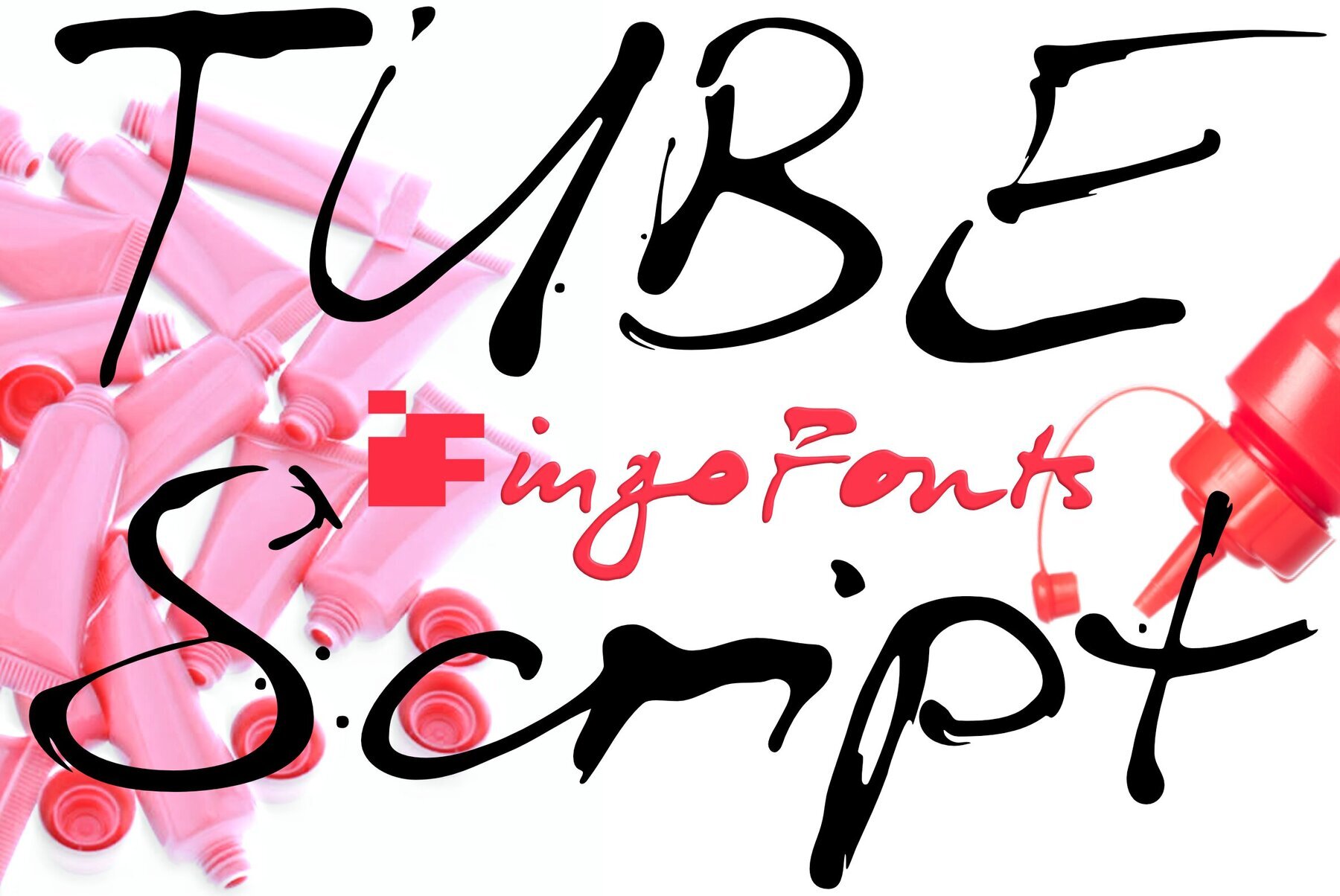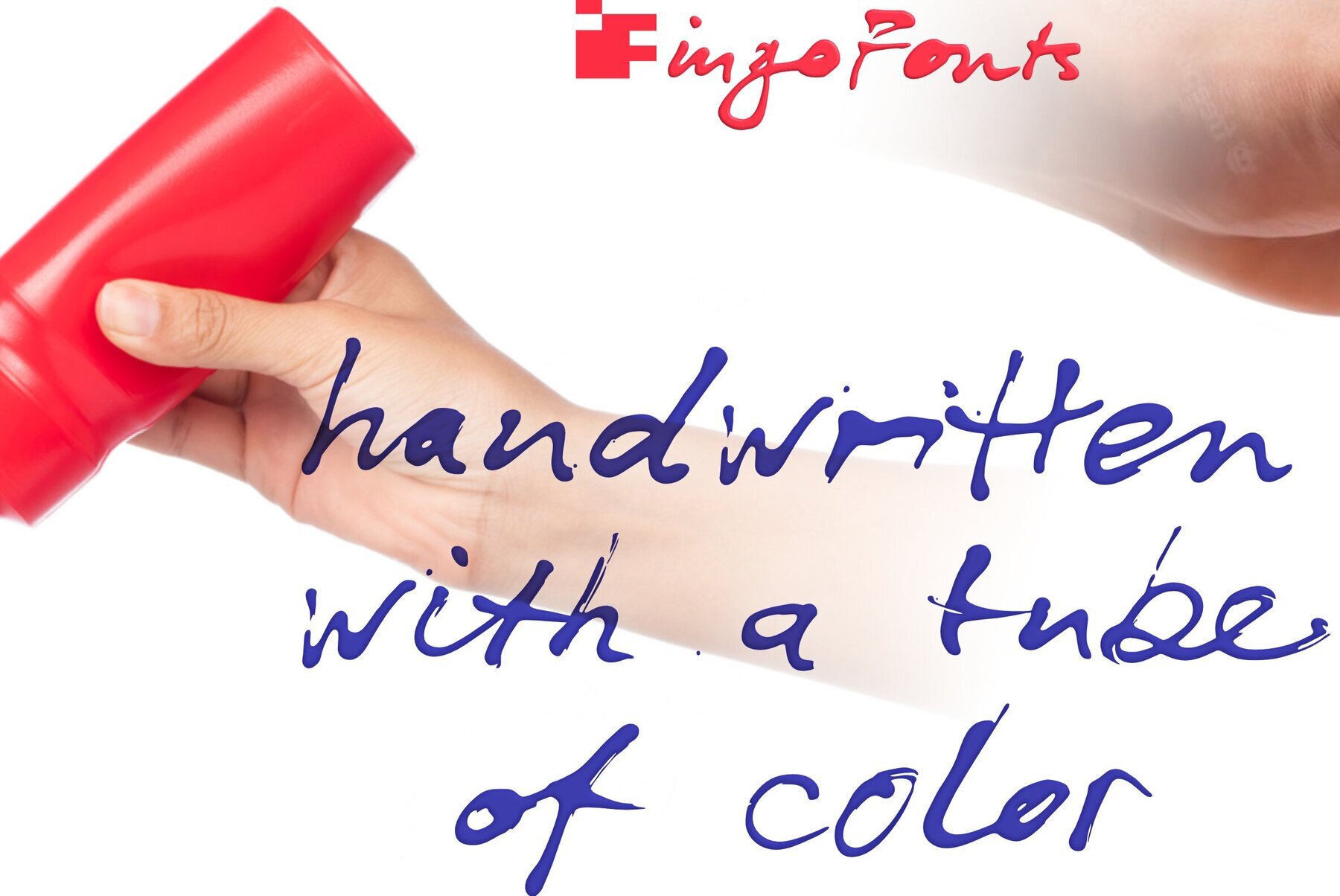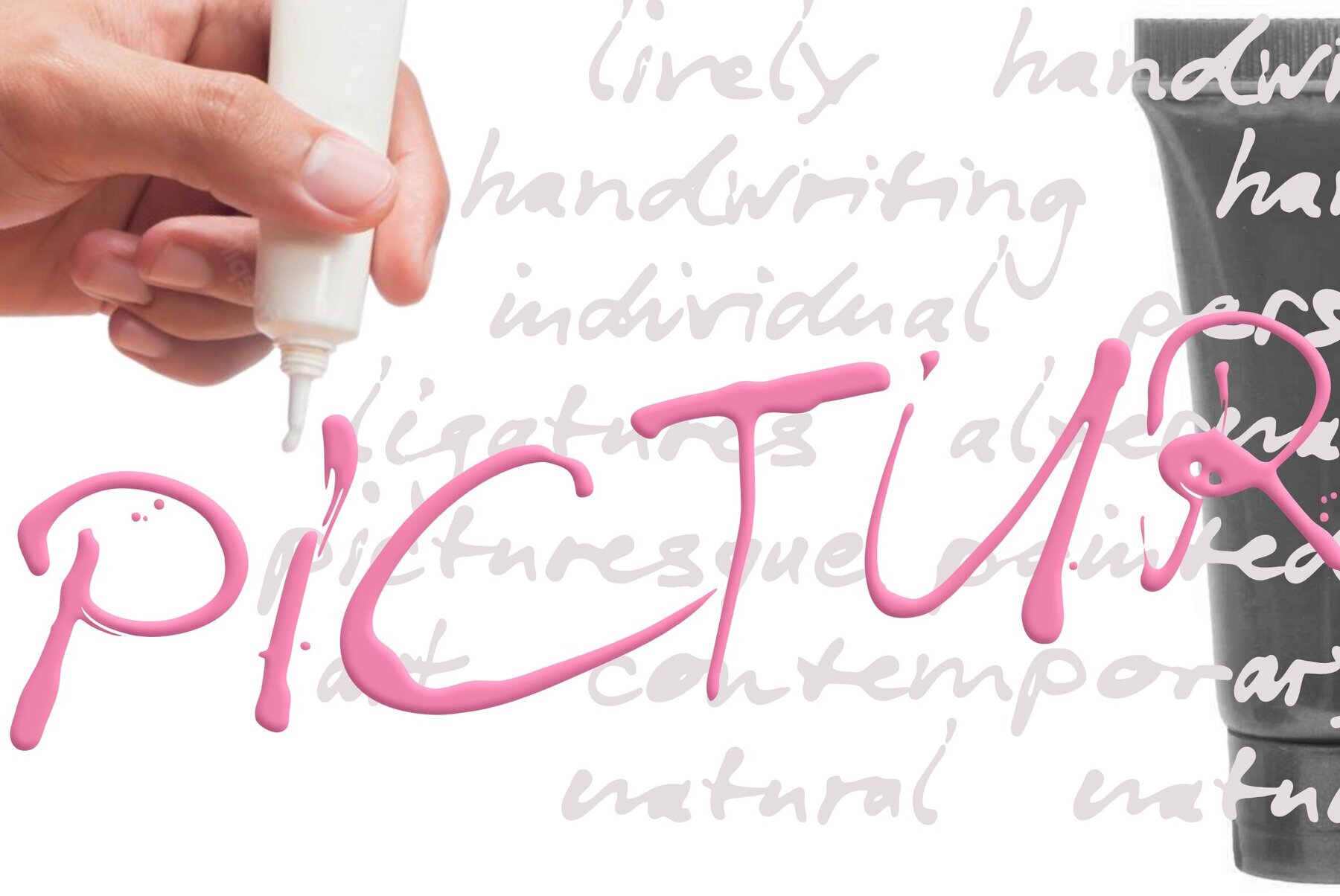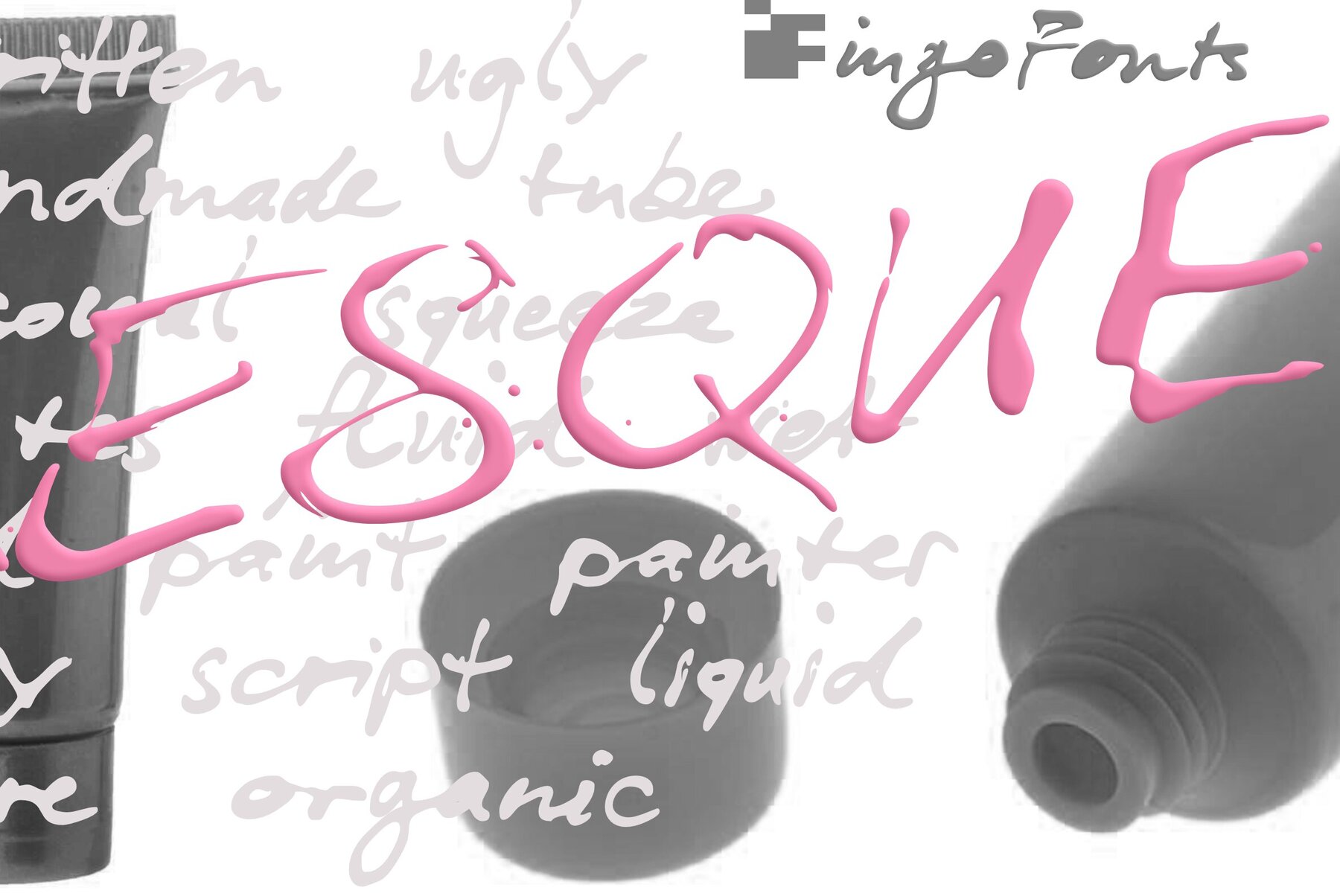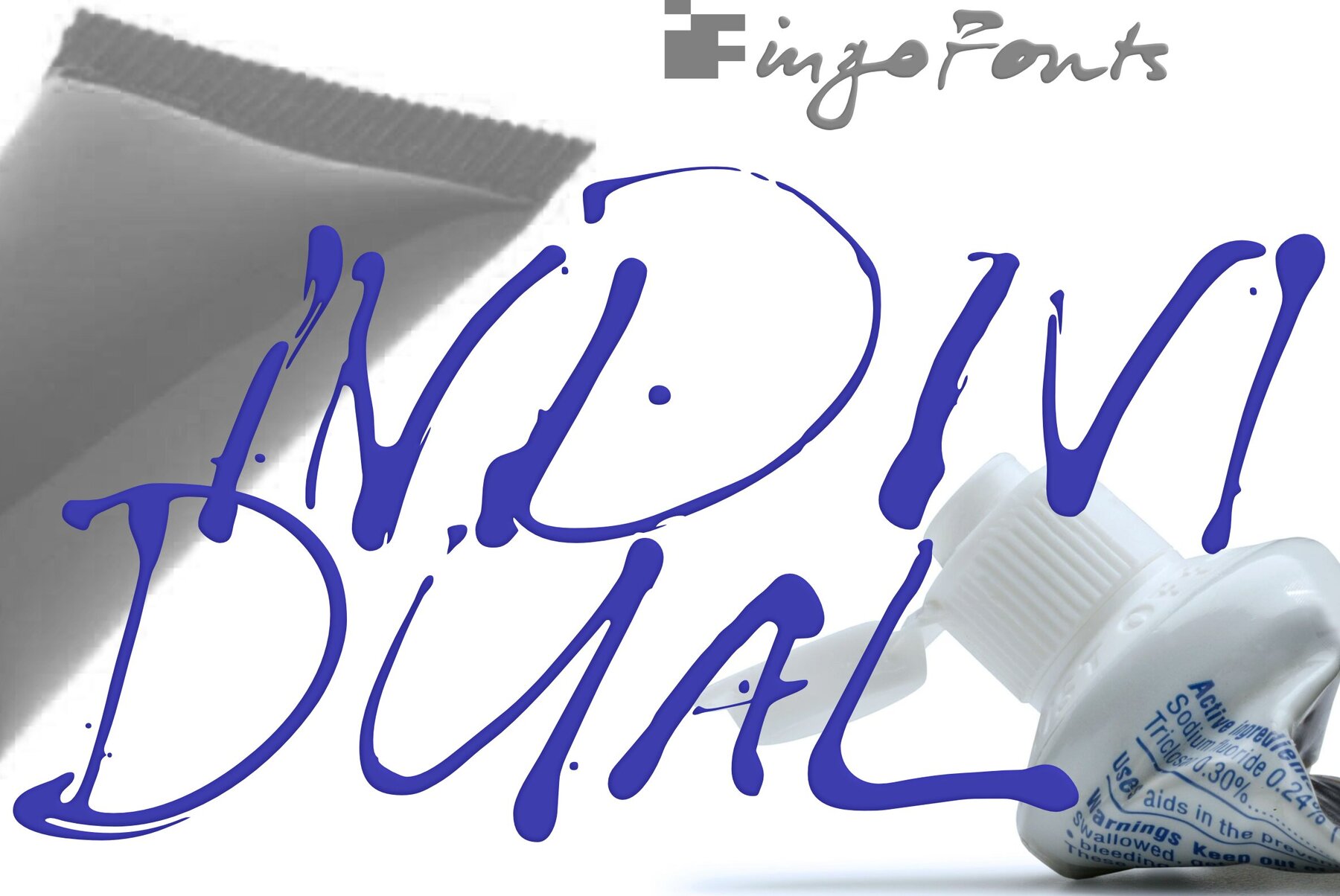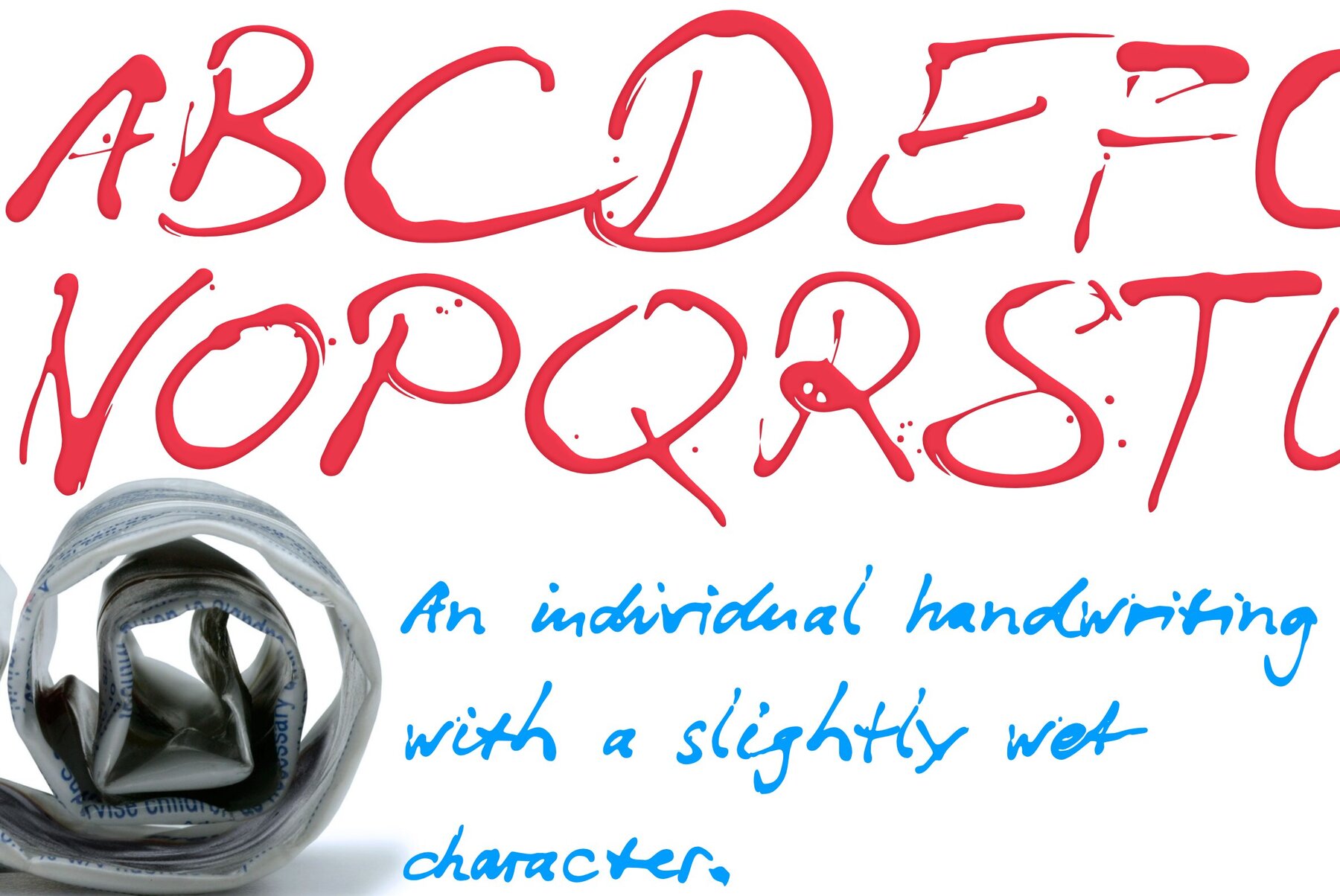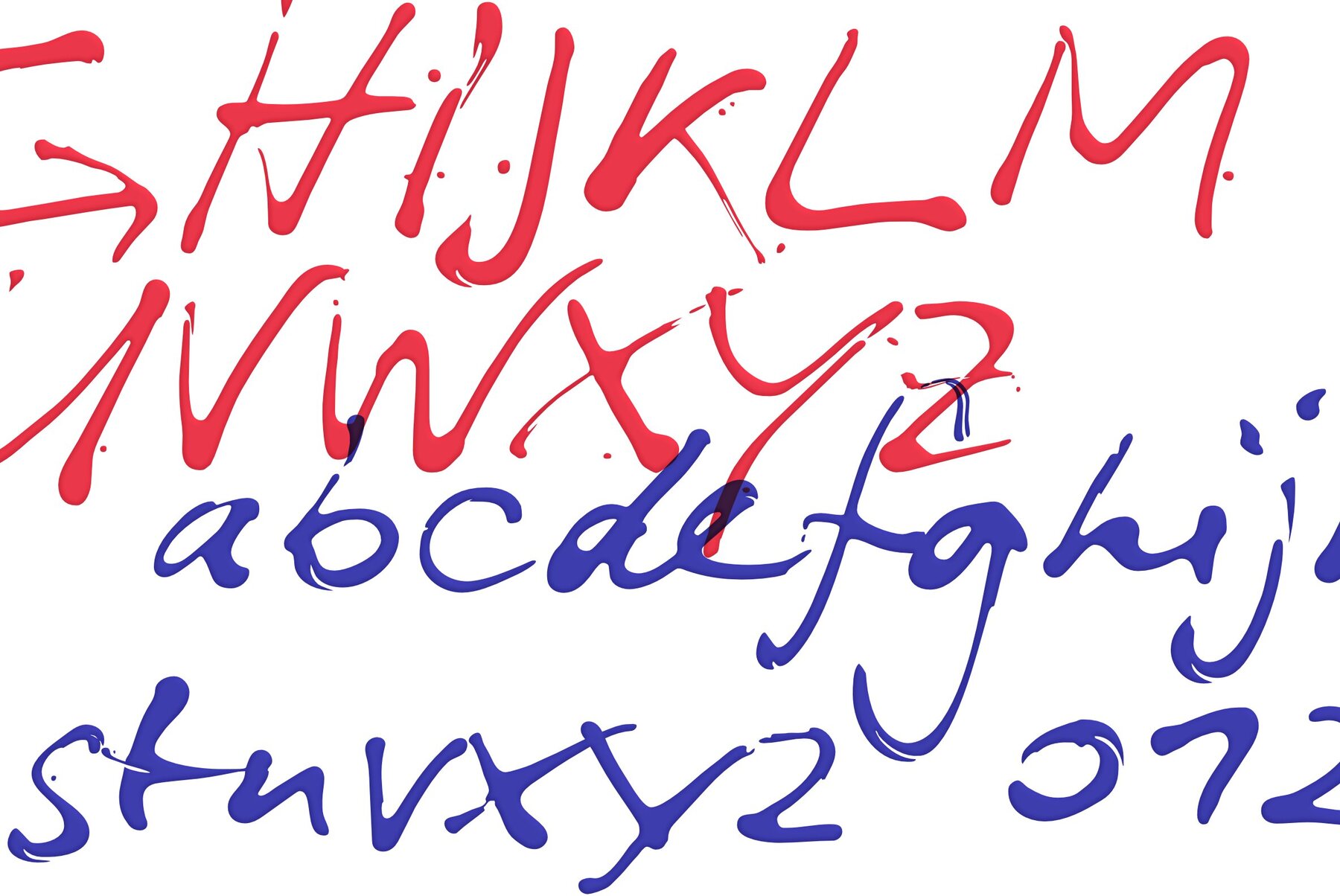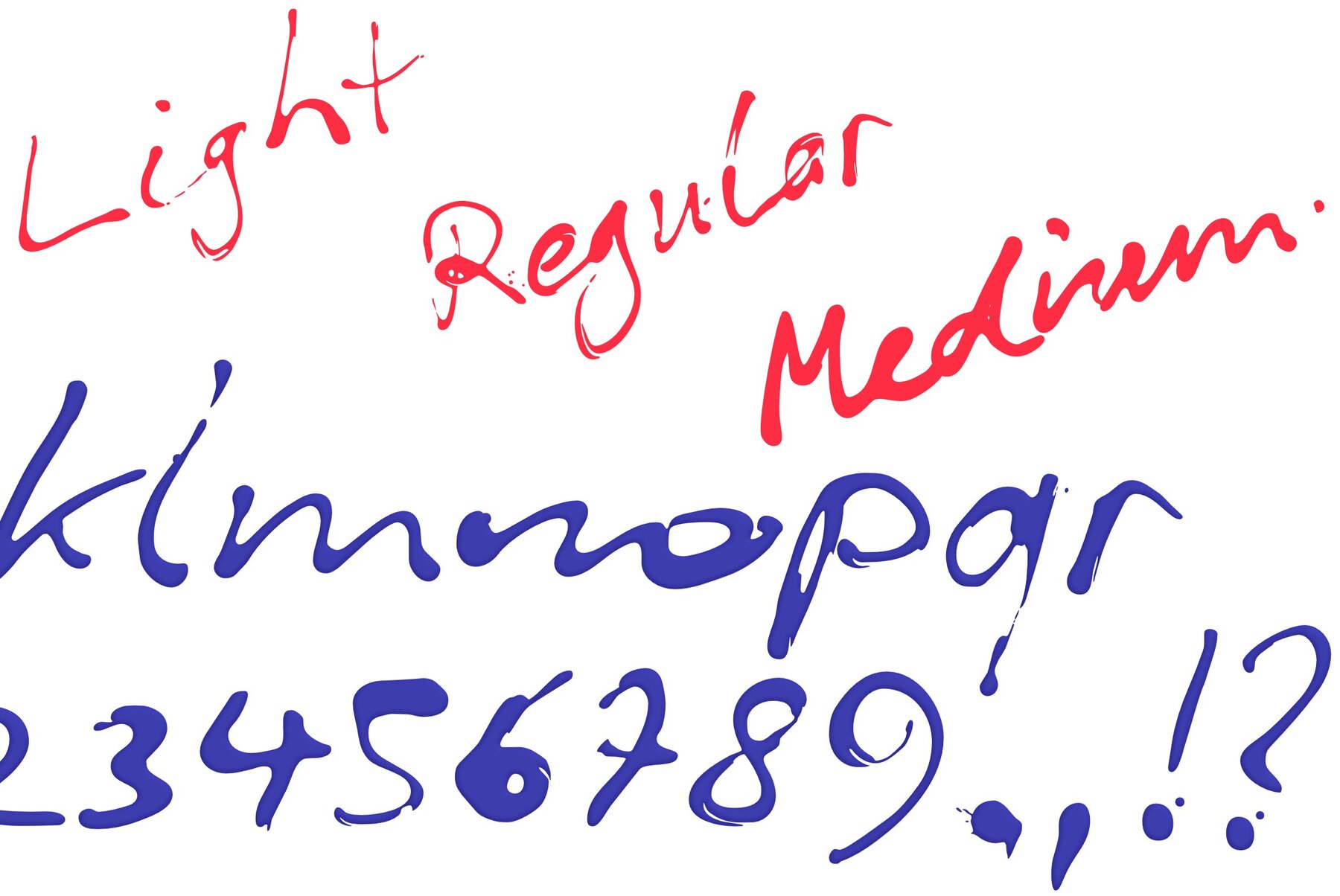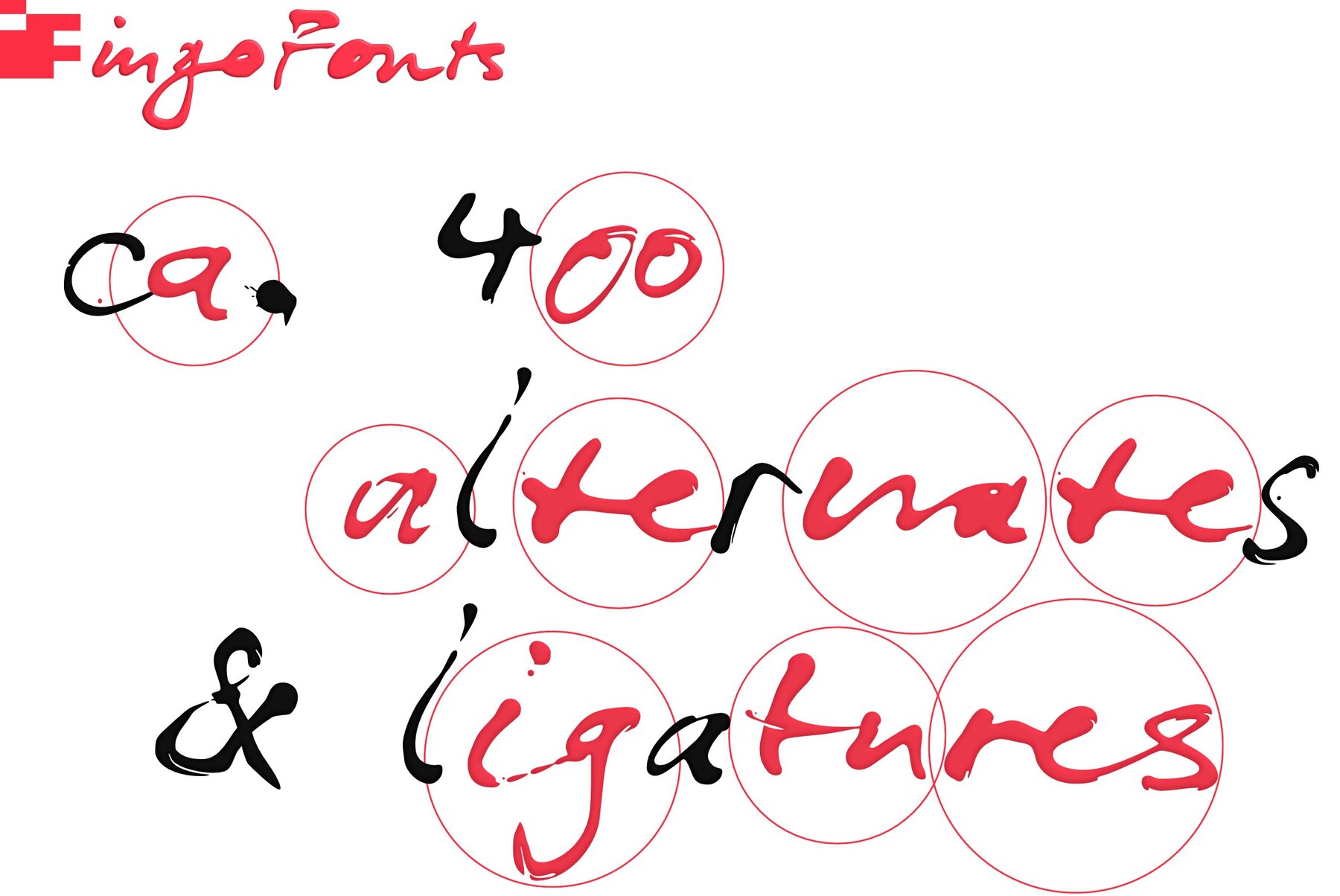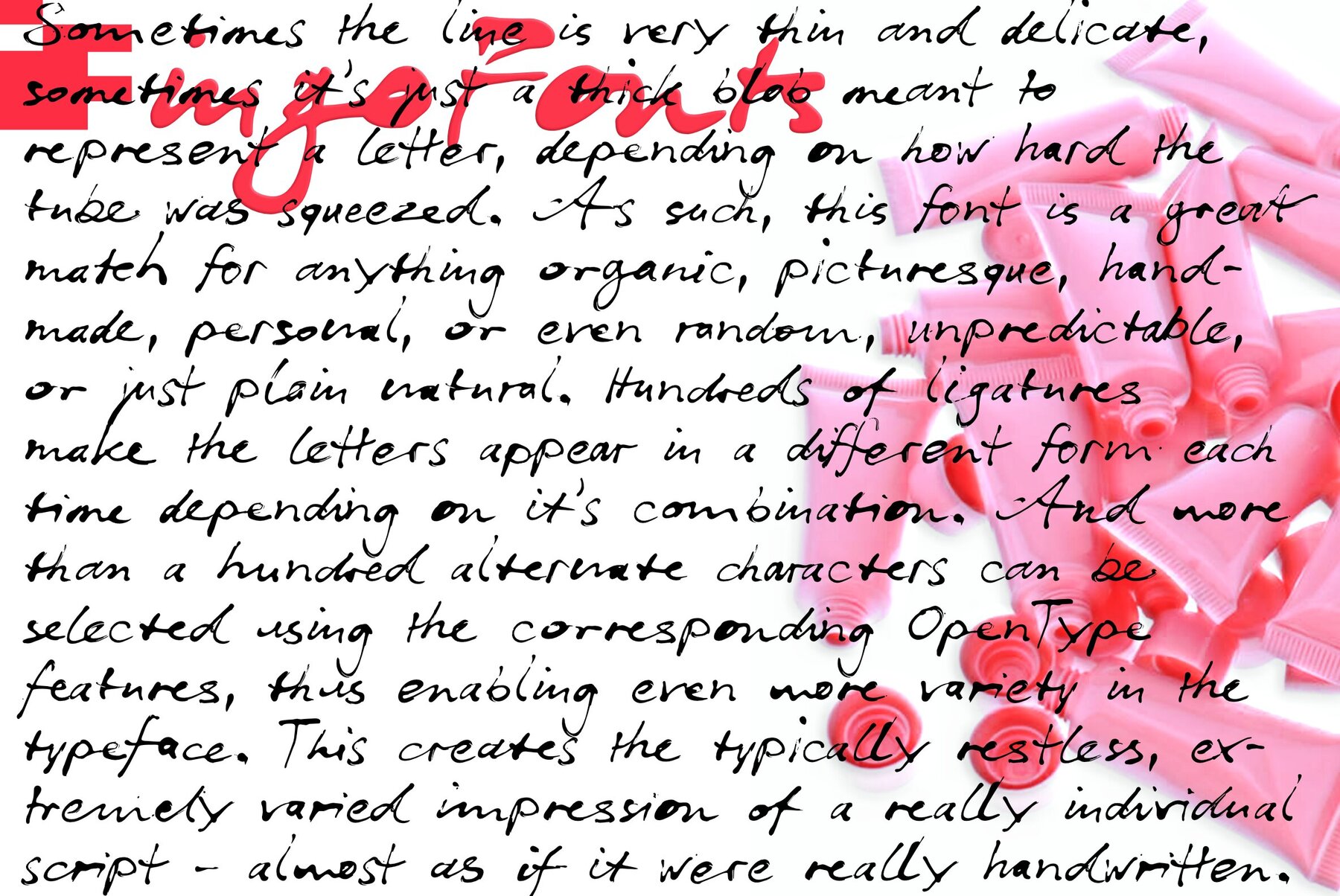
Tube Script Font
A font from the tube: an individual handwriting with a slightly wet character.
In this case, the ”pen“ was a tube of black paint. It’s easy to see that you can’t really write ”beautifully“ with it. Nevertheless, the ”Tube Script“ is a beautiful, personal handwriting whose clumsy origins are not at all obvious in small font sizes. But if it’s big enough, then all the peculiarities of the paint container misused as a writing implement become apparent. Sometimes the line is very thin and delicate, sometimes it’s just a thick blob meant to represent a letter, depending on how hard the tube was squeezed.
A few spills are inevitable. These coincidences of painterly writing are what make this font so appealing. This creates organic forms, random effects, breaks, streaks, where the writer normally determines the form.
As such, this font is a great match for anything organic, picturesque, handmade, personal, or even random, unpredictable, or just plain natural.
Hundreds of ligatures make the letters appear in a different form each time depending on it’s combination. And more than a hundred alternate characters can be selected using the corresponding OpenType features, thus enabling even more variety in the typeface. This creates the typically restless, extremely varied impression of a really individual script – almost as if it were really handwritten.